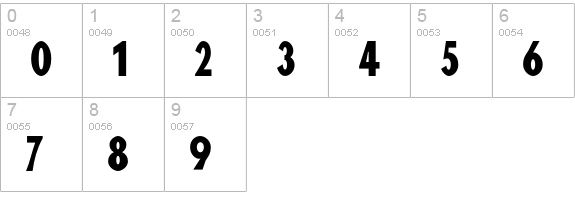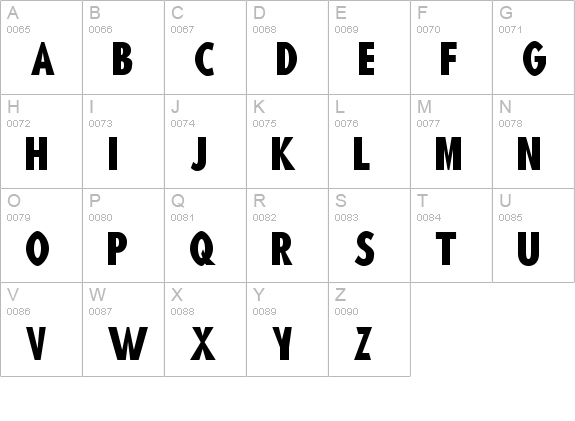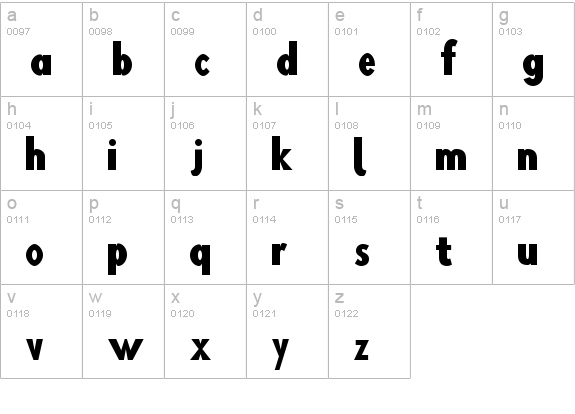
Blink Font Details
Introducing Blink, a modern and versatile font that is sure to catch your eye. With its sleek and stylish design, Blink adds a touch of elegance to any project, whether it be a logo, website, or print materials. This font's clean lines and distinct letterforms make it perfect for conveying a sense of professionalism and sophistication. But what sets Blink apart from the rest? Not only does it offer stunning aesthetics, but it also comes with a fantastic perk - it is available for free! Yes, you read that right. Blink can be freely downloaded at FontsMarket.com, allowing you to enhance your designs without breaking the bank. Whether you're a seasoned designer or just starting out, Blink's user-friendly nature makes it a breeze to work with. Its extensive character set and variety of weights give you the freedom to experiment and find the perfect fit for your project. From bold headlines to delicate body text, Blink has you covered. In addition to its visual appeal, Blink also boasts impeccable legibility. Its well-crafted letterforms ensure that your message is conveyed with clarity and impact. Whether your design calls for a bold statement or a subtle touch, Blink delivers with its versatile range of styles. So why wait? Take your designs to the next level with Blink. Download this incredible font for free at FontsMarket.com and let your creativity shine. With Blink, the possibilities are endless, and your designs are sure to make a lasting impression.